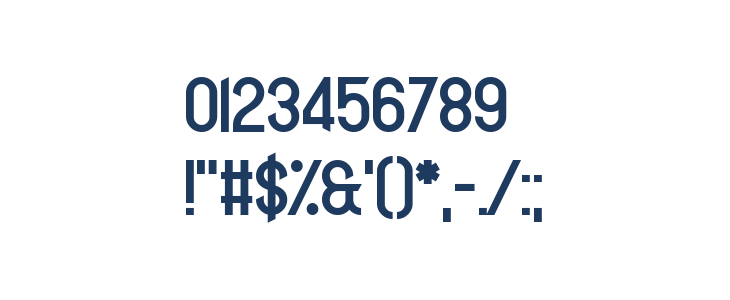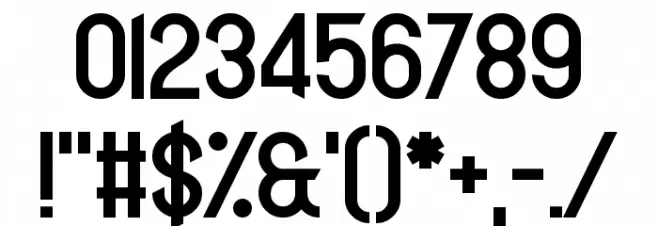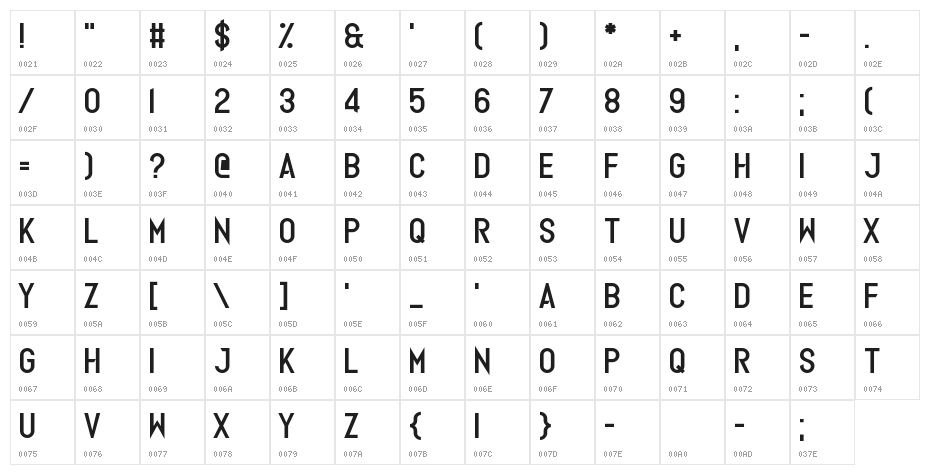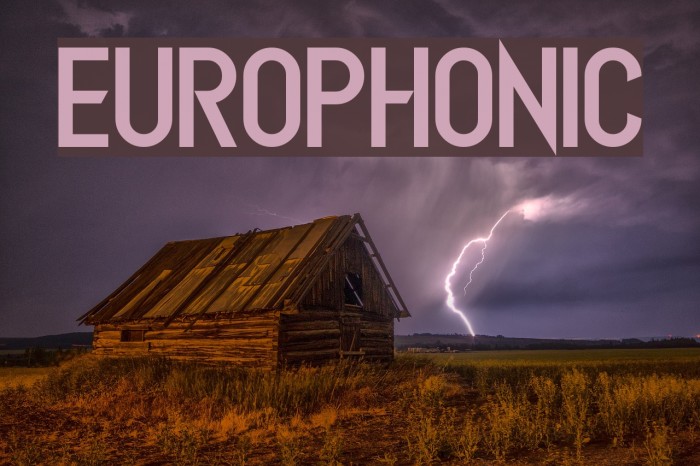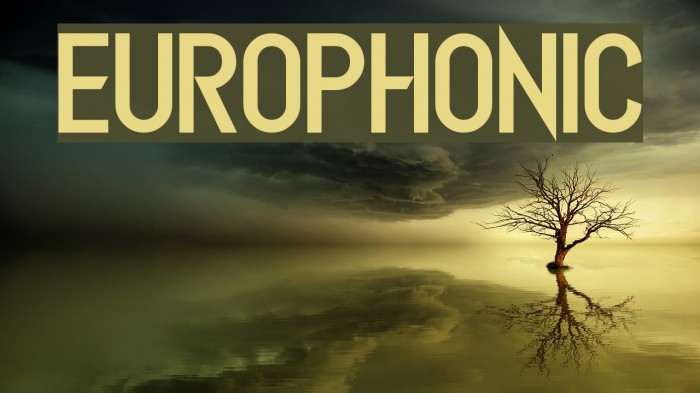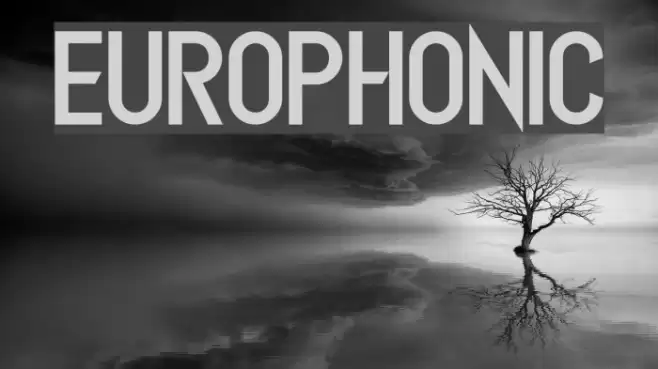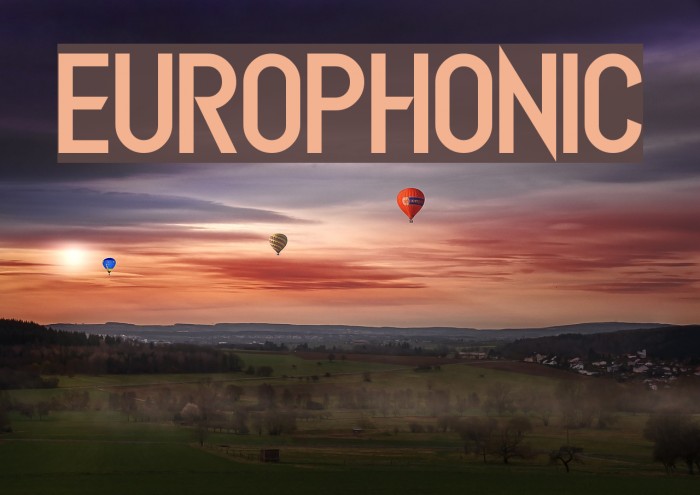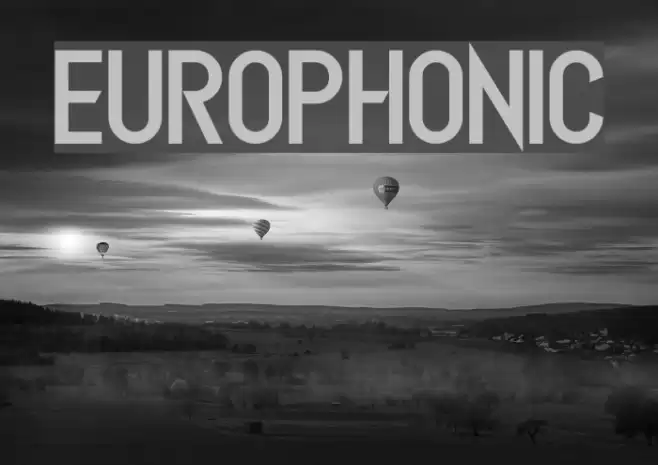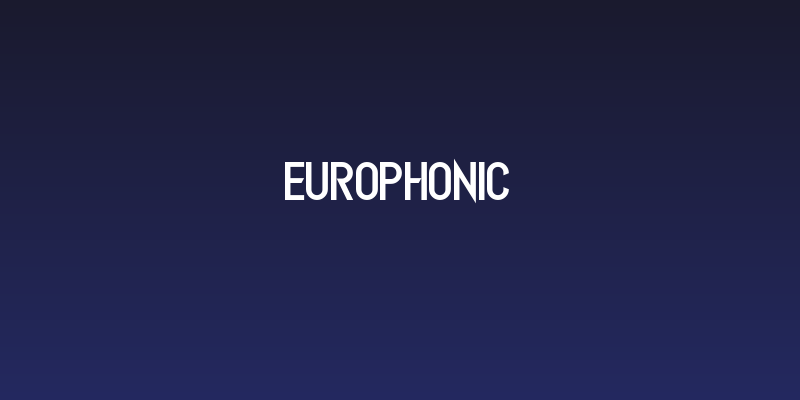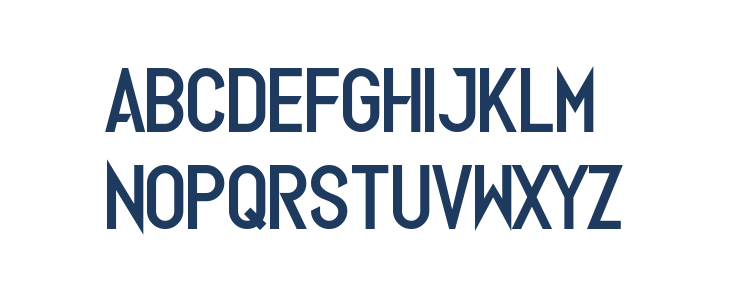
Europhonic Font
Europhonic Description
This font features a bold, geometric sans-serif style with clean lines and a modern aesthetic. The uppercase letters are uniform in height, providing a balanced and structured appearance. The lowercase letters maintain a similar width, ensuring consistency across text. Numbers are clear and easily distinguishable, while special characters are designed to complement the overall style. The font's simplicity and clarity make it versatile for various design applications.
Use CaseHeadlines, Logos, Branding
Proposed ProjectsIdeal for branding, advertising, headlines, and digital media projects where clarity and modernity are essential.